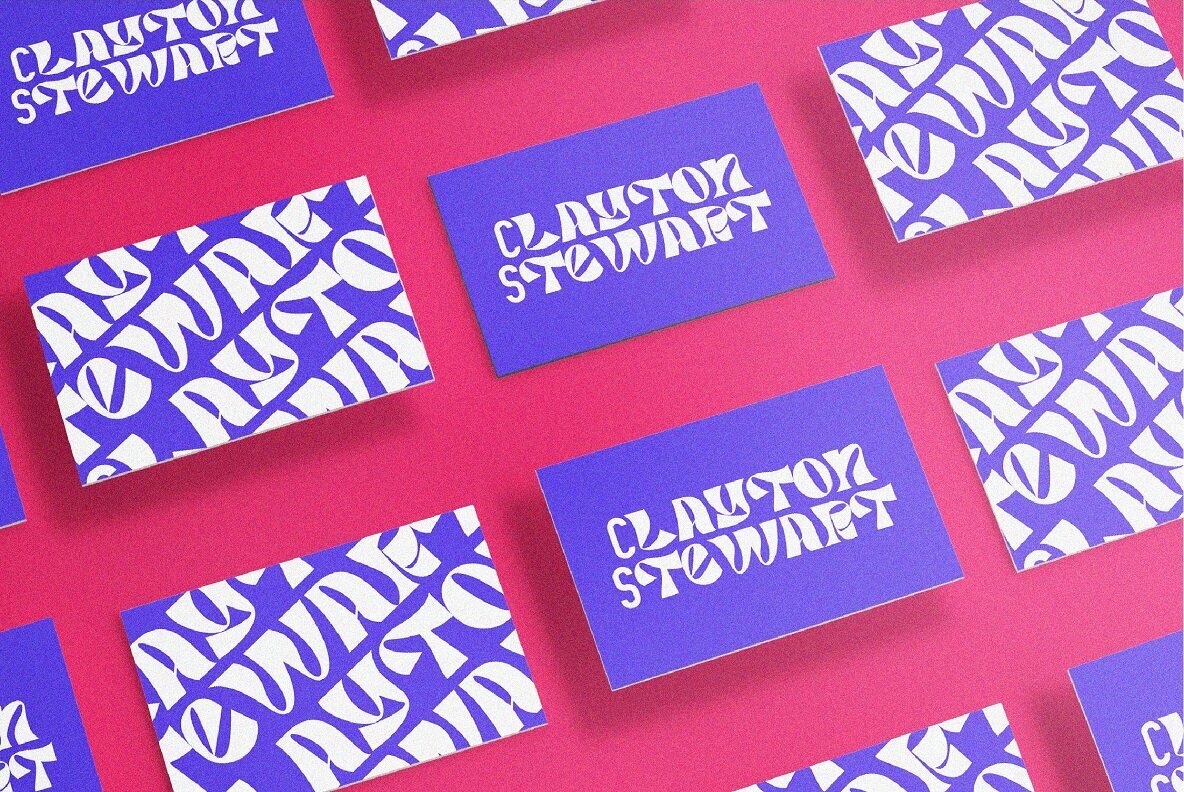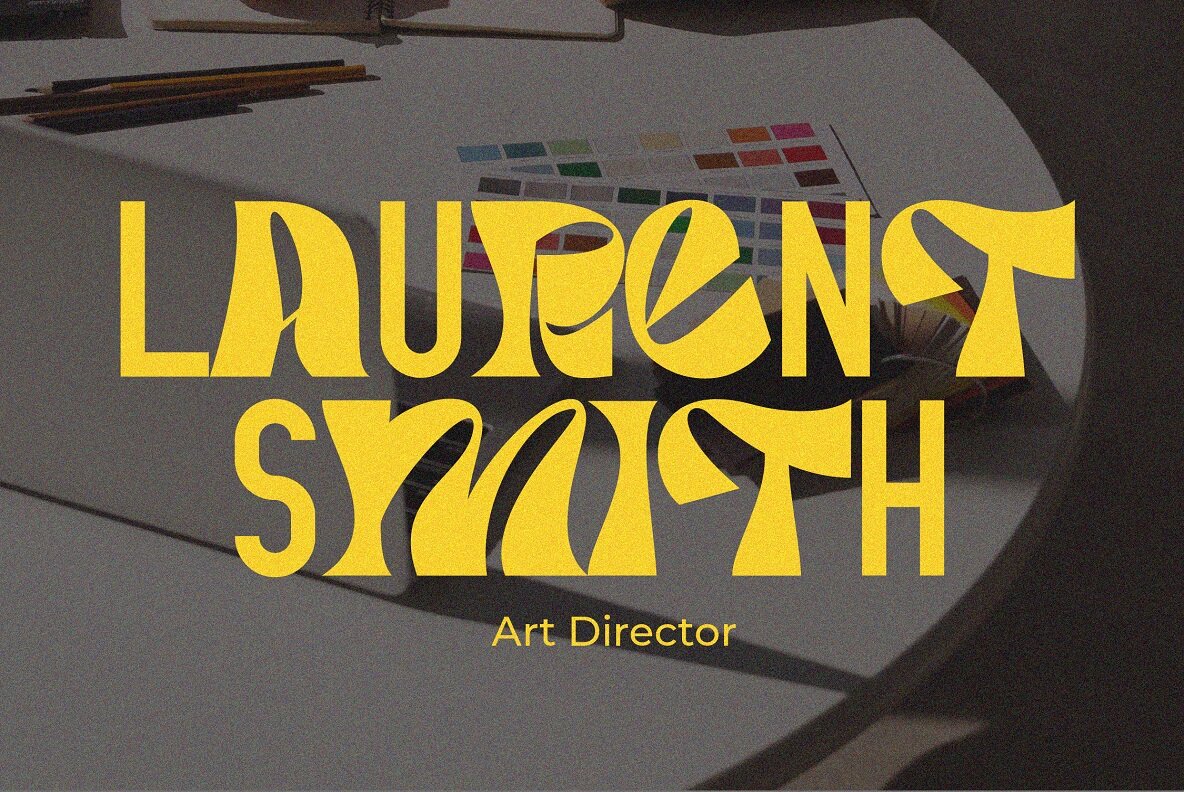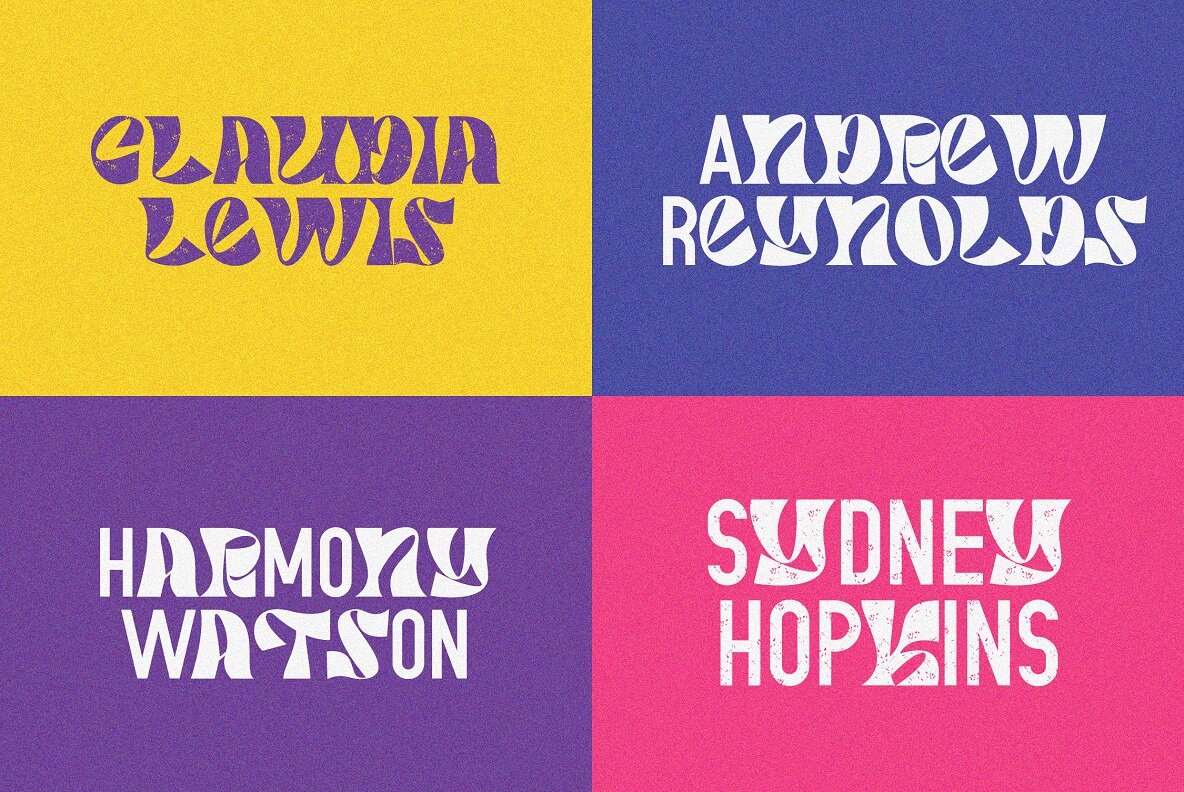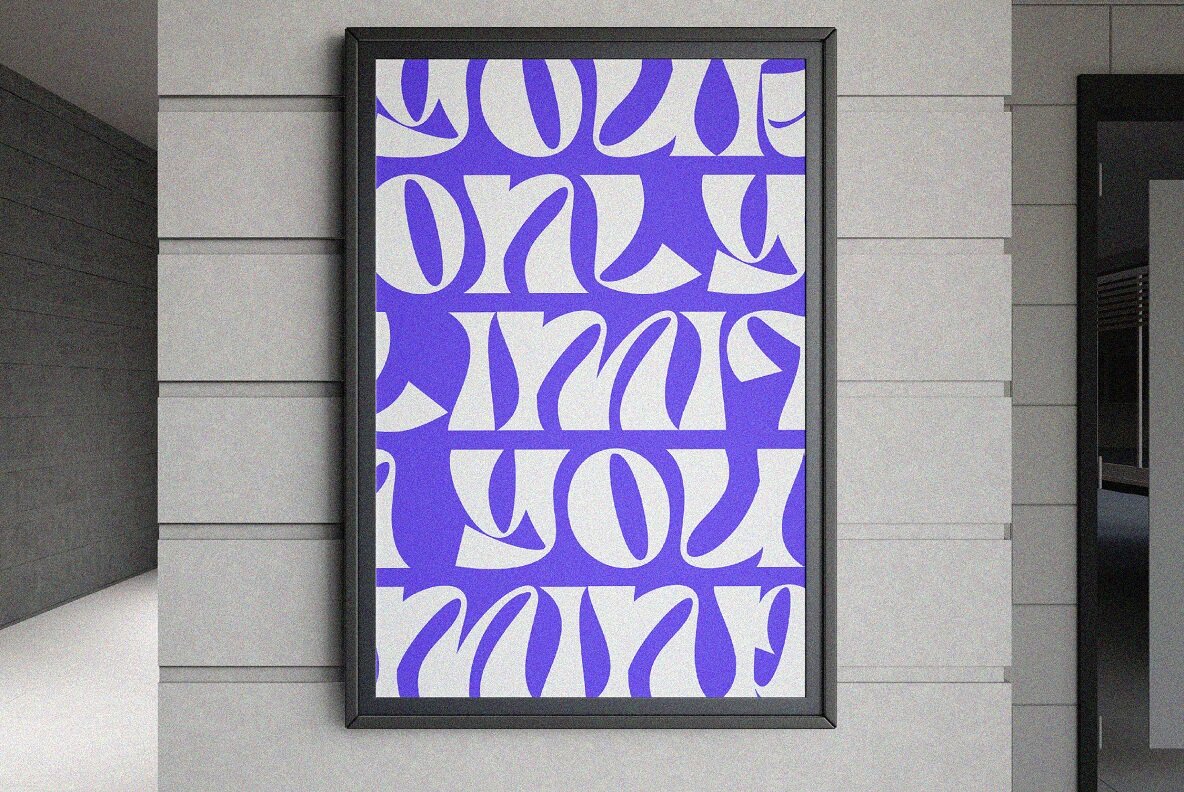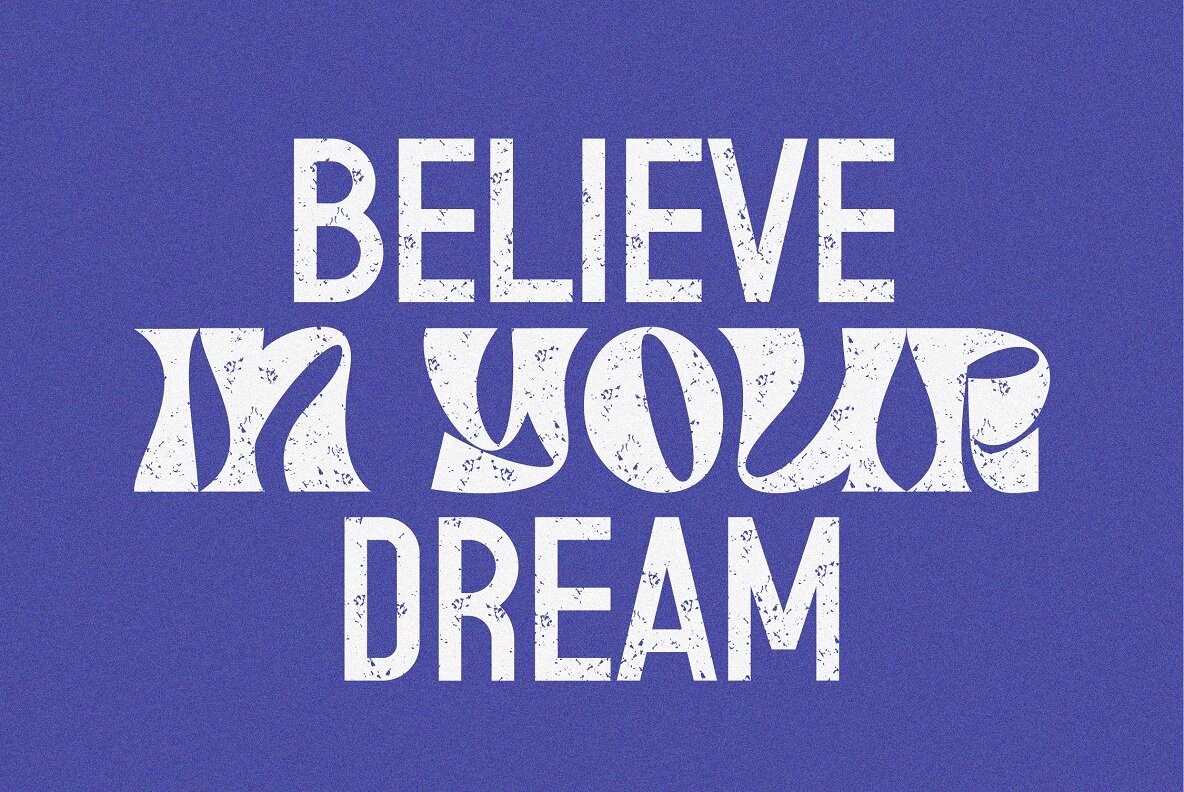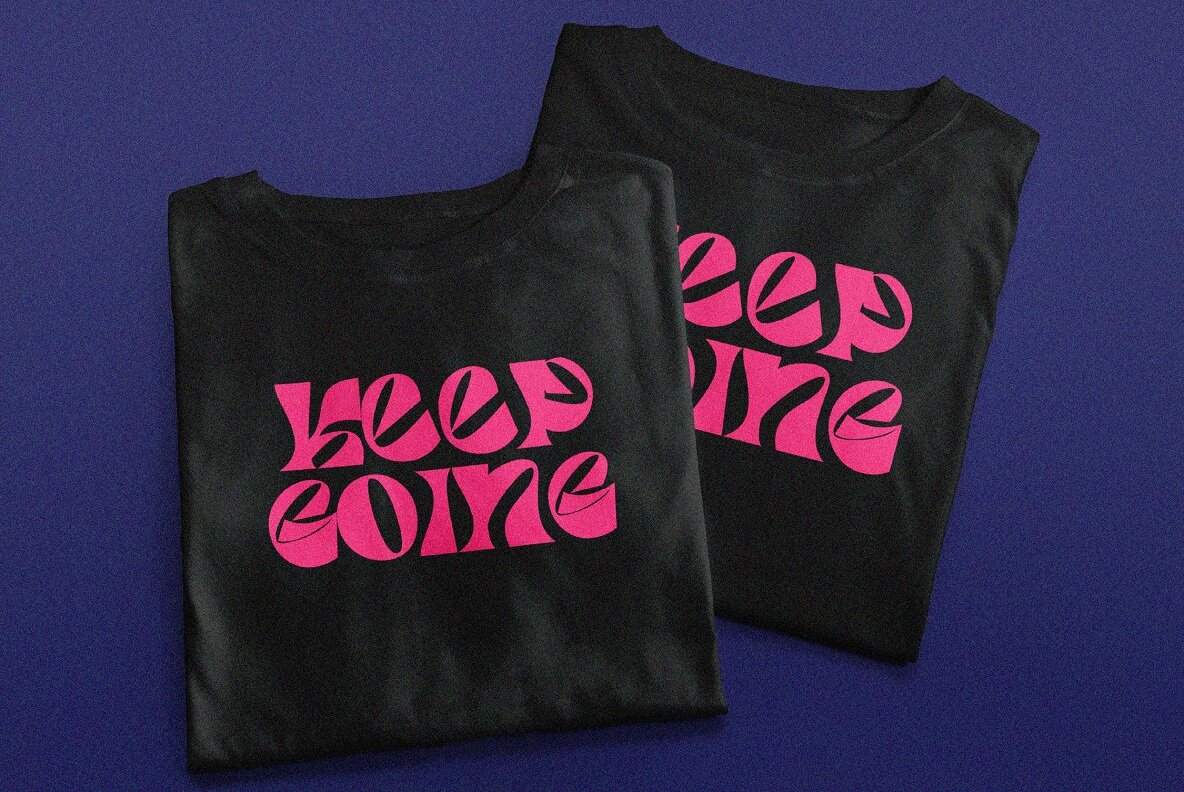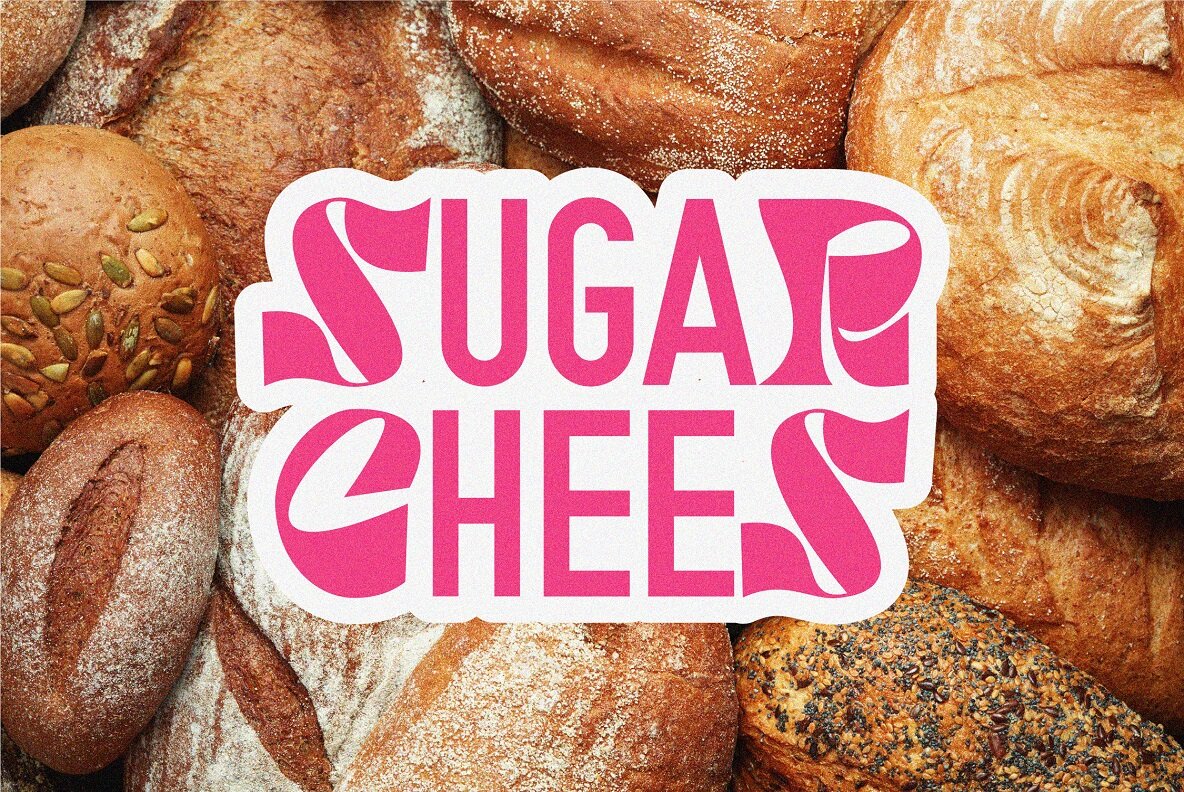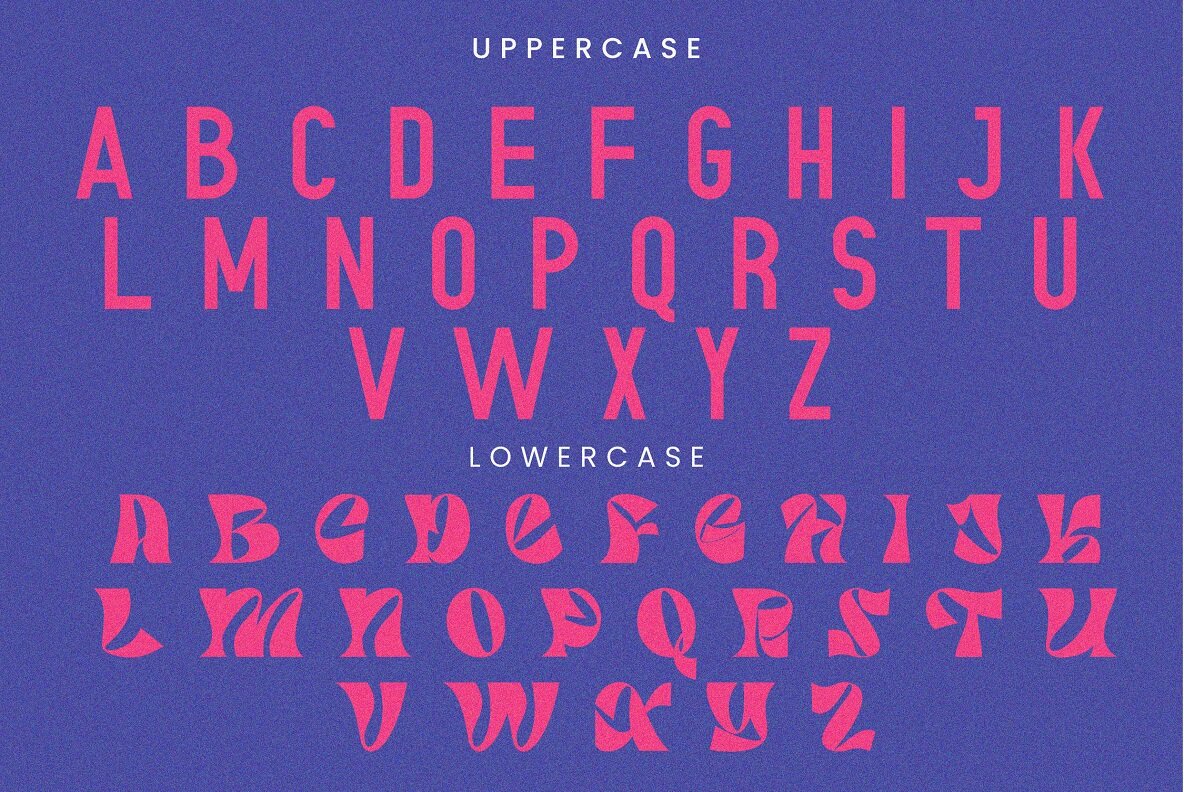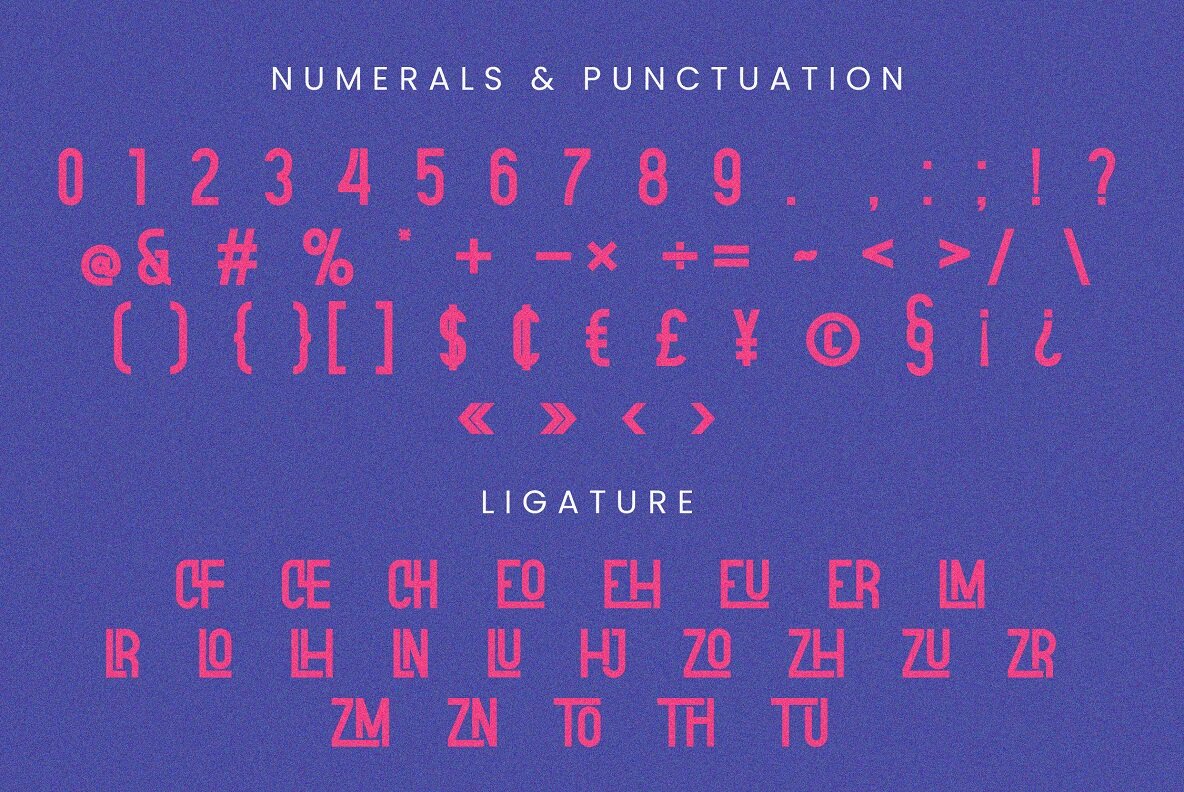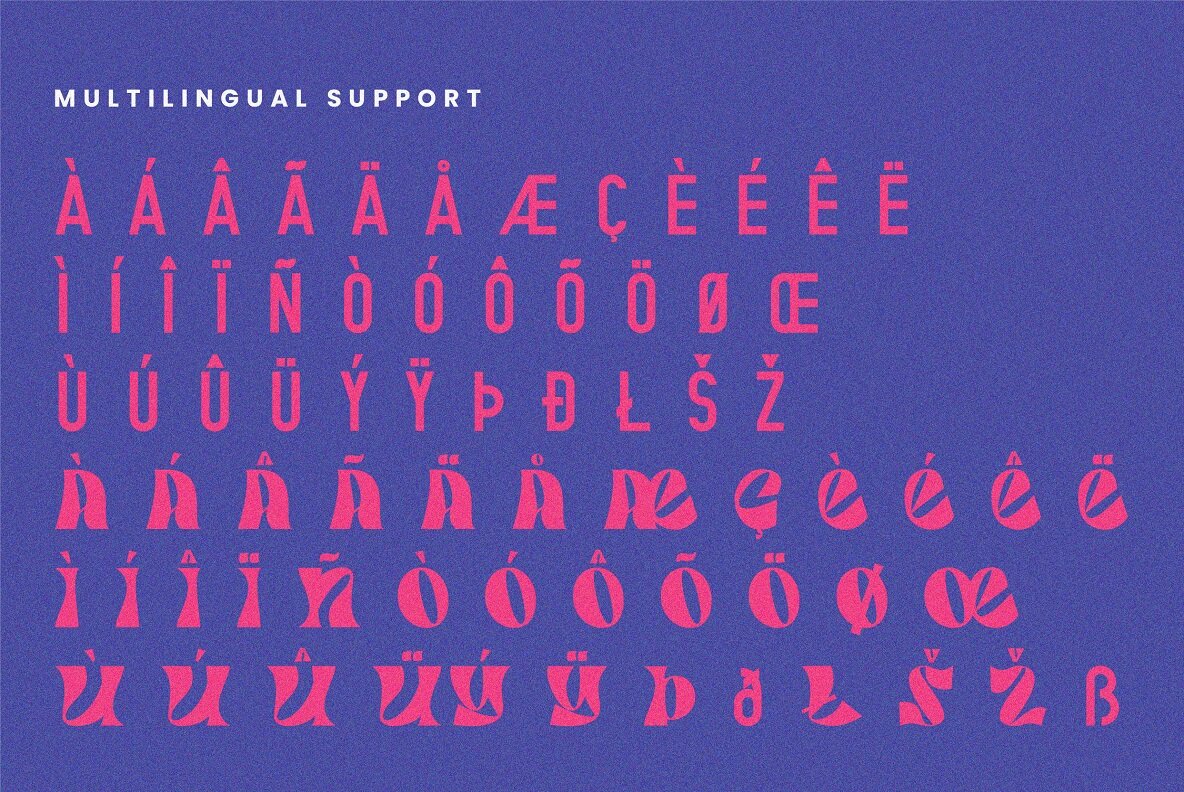
Gratezon: A Playful Display Font
Gratezon by Rvandtype Studio is a charming display font that adds a playful touch to your designs. Perfect for logos, branding, invitations, stationery, and social media posts, its trendy flair will bring your creations to life.
• Numbers and Punctuation – Easily incorporate any numerical or punctuation marks into your design.
• Multilingual Support – Offers versatility with support for multiple languages.
• Ligature – Includes ligatures for smooth letter connections.